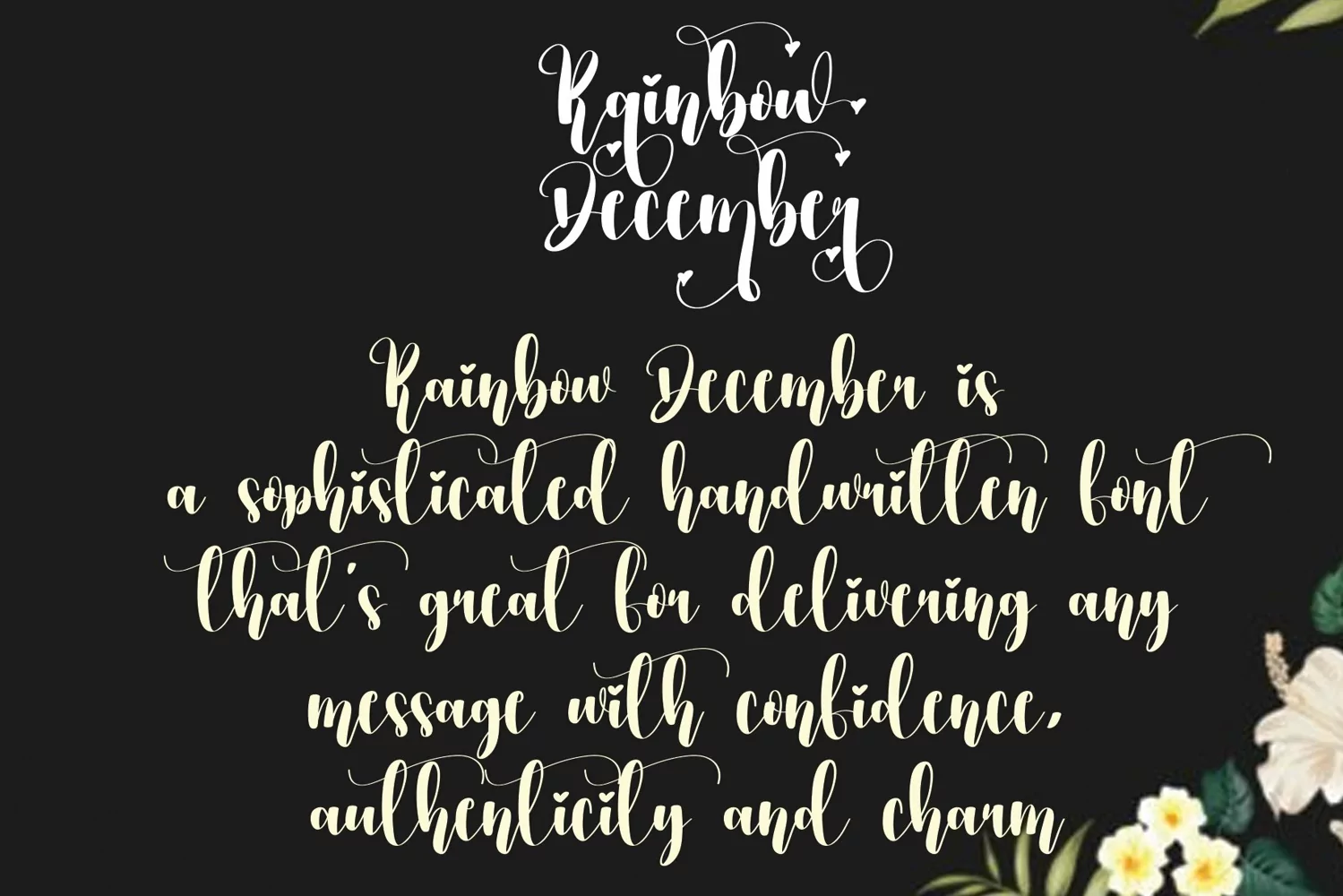
Rainbow December | Script font
Rainbow December Font is a popular and professional script font. It is Modern and elegant, this typeface is made of beautiful, creative strokes.